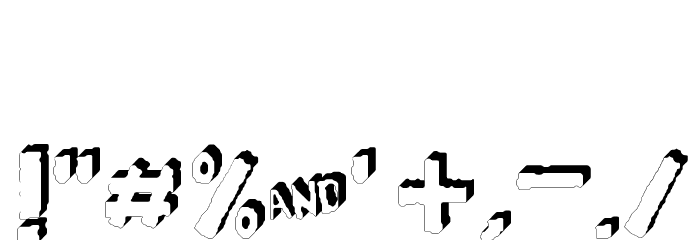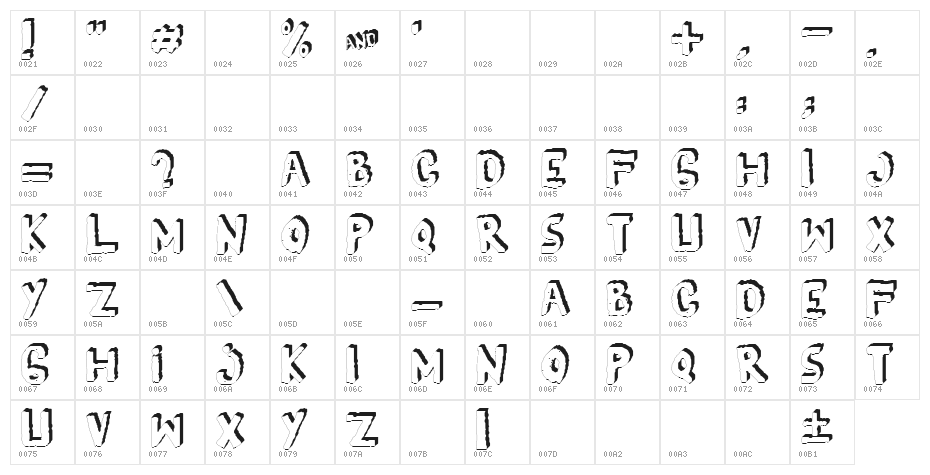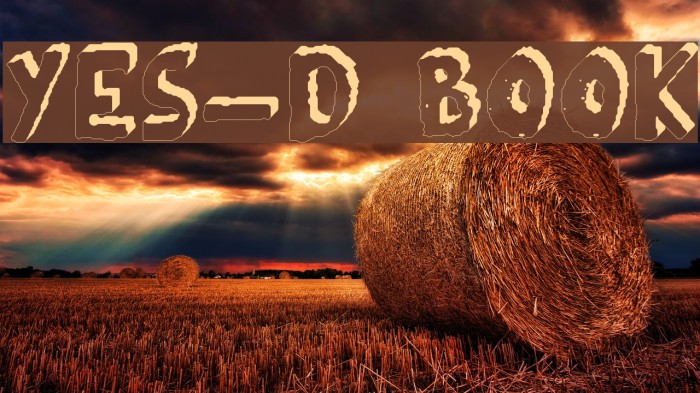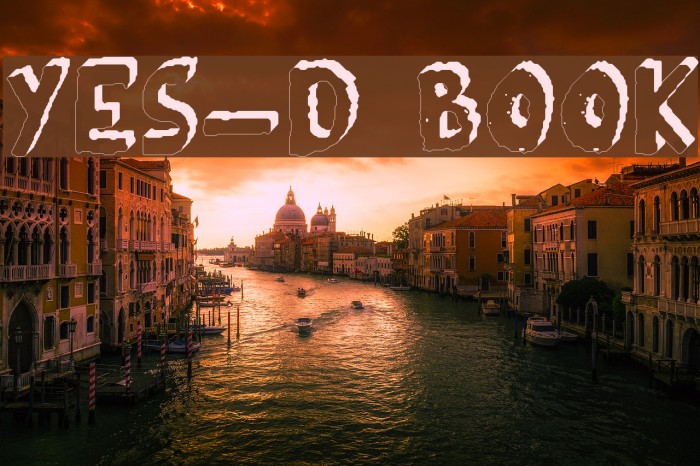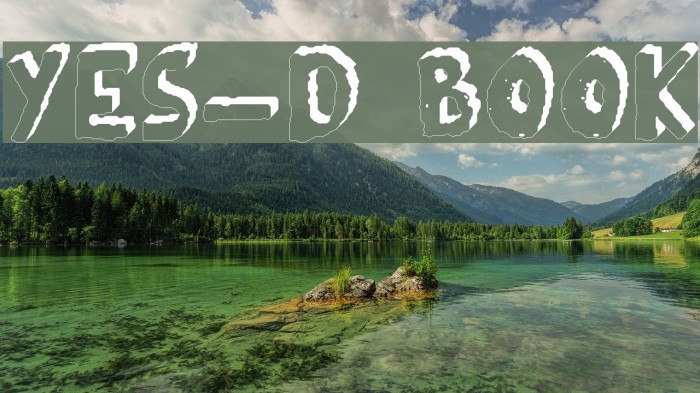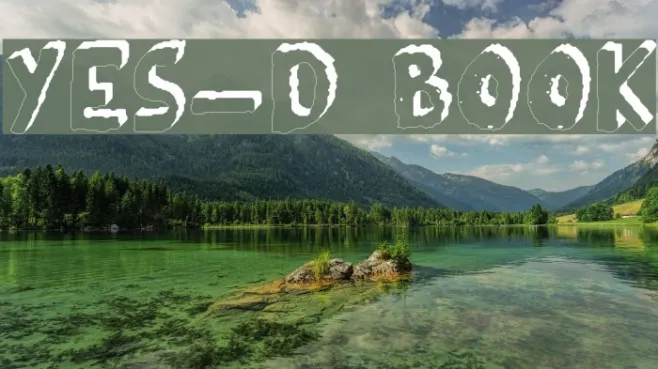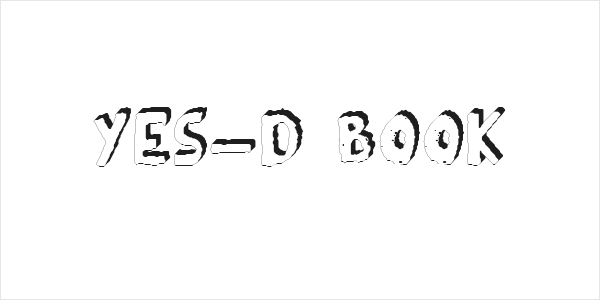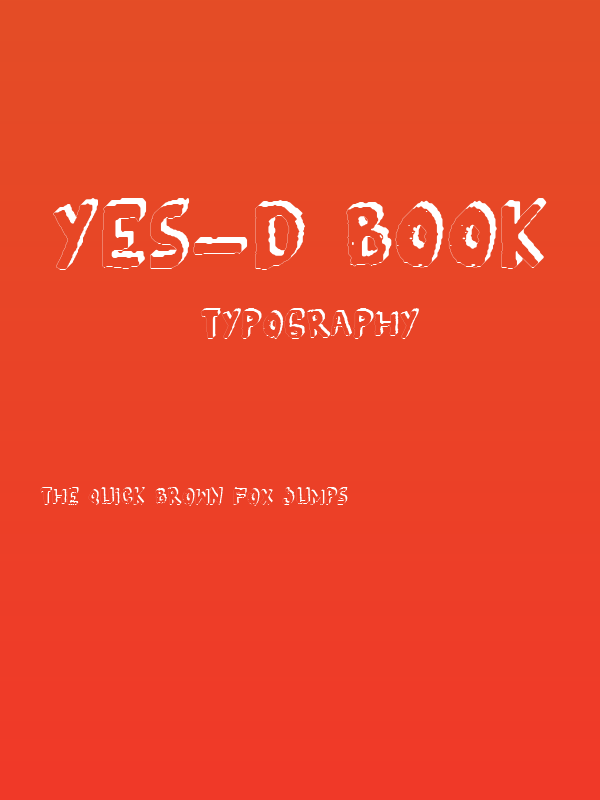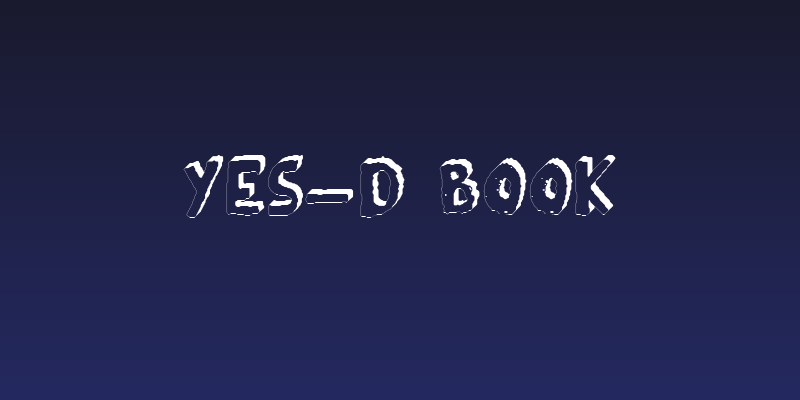
YES_3D Book Font
YES_3D Book Description
This font features a bold, three-dimensional style with a playful and dynamic appearance. The letters are outlined with a shadow effect that gives them depth, making them stand out prominently. The characters have a slightly irregular, hand-drawn quality, adding to their charm and uniqueness. The uppercase and lowercase letters maintain a consistent style, with rounded edges and a slightly condensed form. The numbers and special characters follow the same design principles, ensuring a cohesive look across all elements. This font is ideal for projects that require a fun and engaging visual impact.
| Overall Style | Playful, Dynamic |
| Proposed Projects | Ideal for children's book covers, playful branding, posters, and creative advertising. |